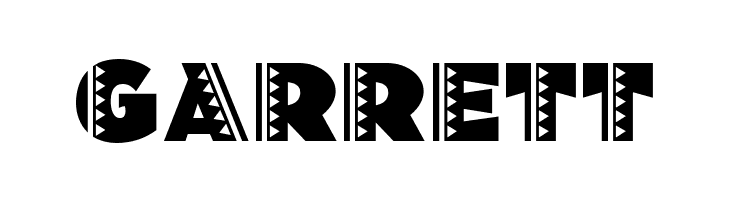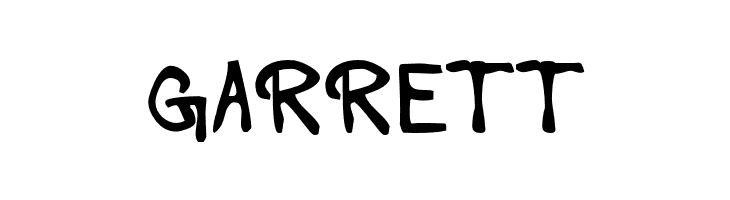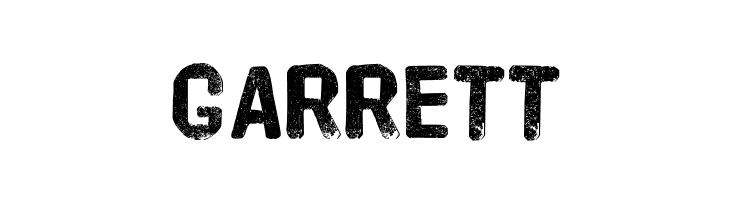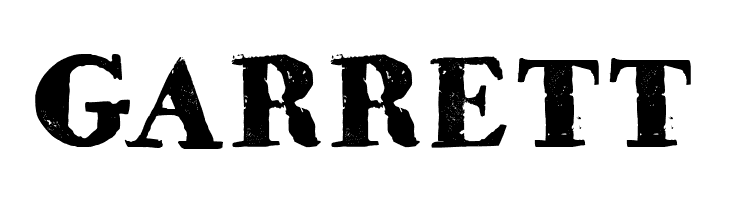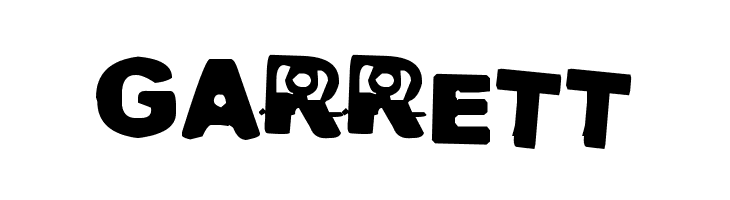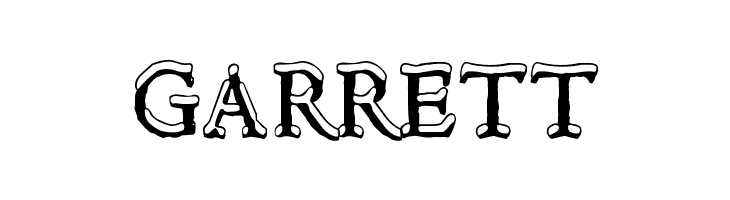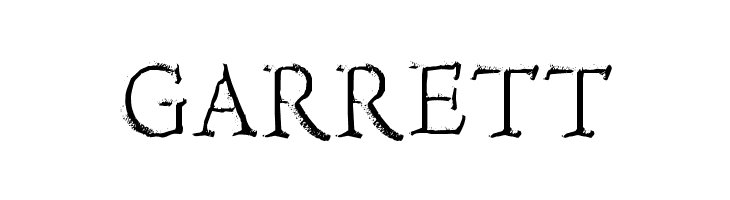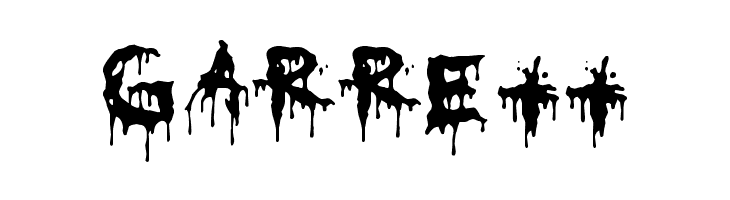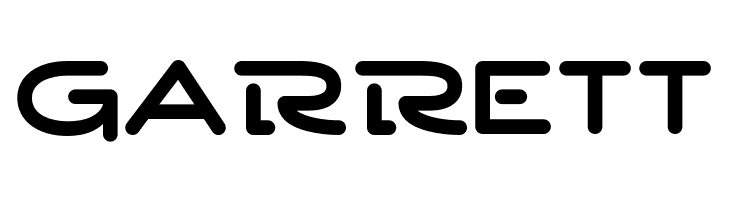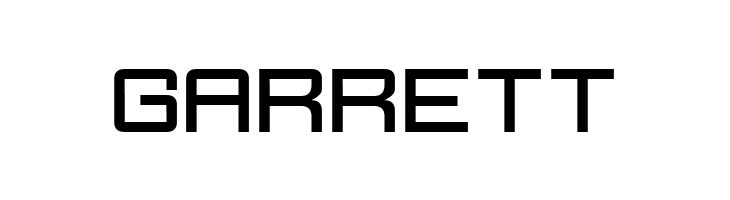
An ornate and decorative font with intricate floral designs within each letter.
A bold, decorative font with tribal patterns and geometric shapes.
A bold, decorative font with tribal-inspired patterns inside each character.
A bold, playful font with a vintage flair and unique serifs.
A playful and quirky serif font with exaggerated serifs and unique character shapes.
A chaotic, distressed font with bold, jagged strokes and a grunge aesthetic.
A bold, distressed font with a vintage, textured appearance.
A modern, bold font with rounded edges and a geometric design.
Automotive-themed pictorial display font using car parts and tools for each character.
A playful, handwritten font with dynamic strokes and a whimsical style.
An engraved, textured font with a vintage and classic appeal.
A playful, decorative font with bold, rounded edges and a whimsical, hand-drawn style.
A whimsical and eclectic collection of bold, imaginative pictorial symbols.
A whimsical, vintage-style font with elegant curves and subtle serifs.
A whimsical and playful font with elegant flourishes and clear readability.
A bold, distressed font with a vintage, textured appearance.
A bold, distressed font with a vintage, rugged appearance.
A bold, distressed font with a vintage, textured style.
A bold, distressed font with a vintage, textured appearance.
A bold, impactful font with rounded edges and strong character presence.
A playful, hand-drawn font with bold, irregular strokes and a casual style.
A geometric, angular font with a futuristic and bold design.
A bold, italicized font with sharp, angular edges and a futuristic style.
A sharp, angular italic font with a futuristic and dynamic style.
A modern, geometric font with sharp edges and consistent spacing.